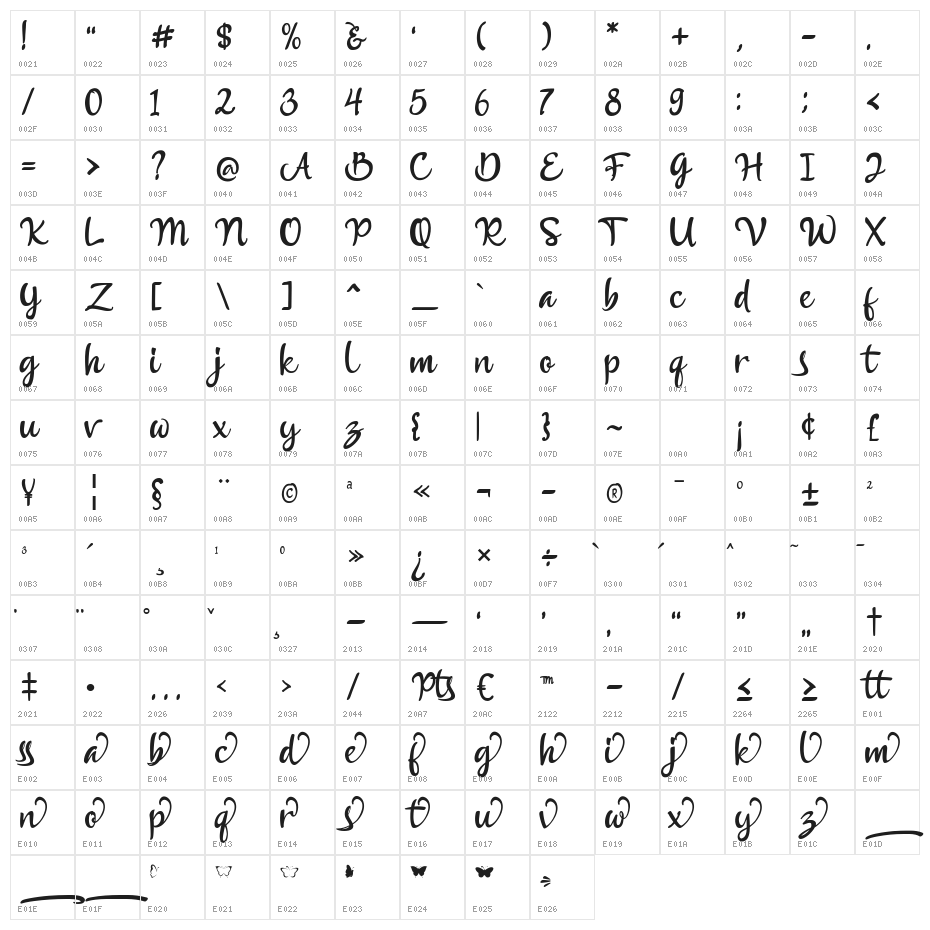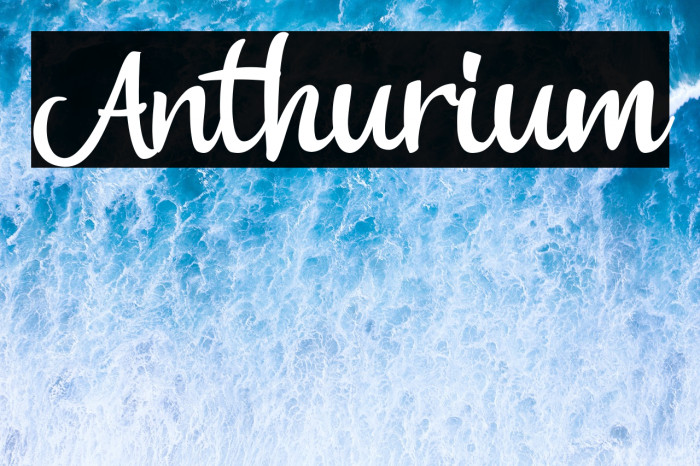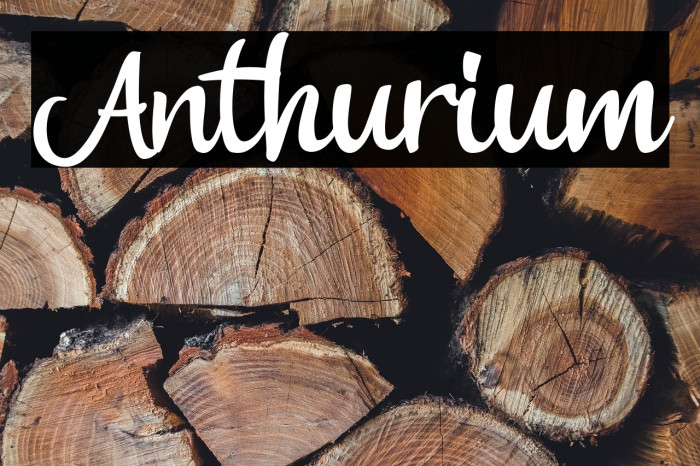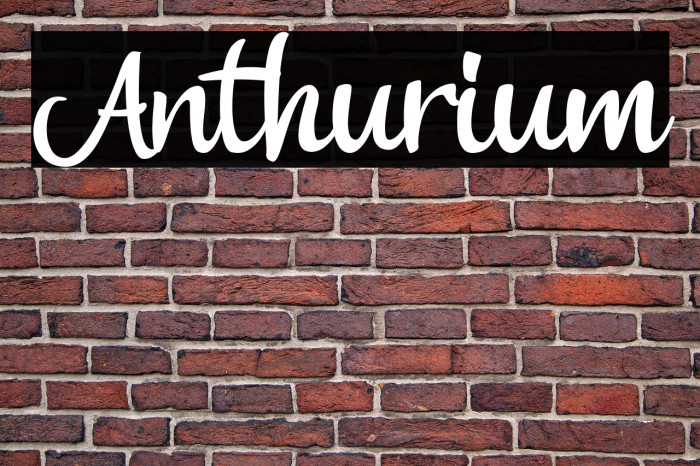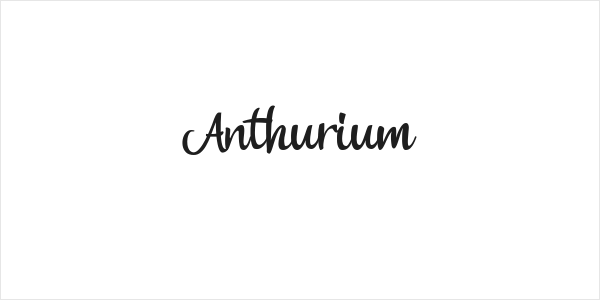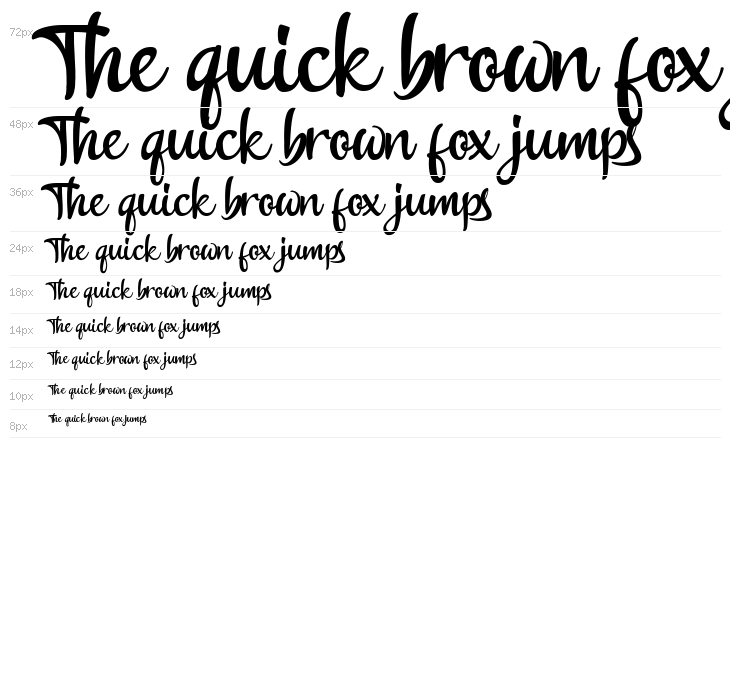
Anthurium Font
Anthurium Description
This font features a lively and flowing script style, characterized by its elegant and cursive letterforms. The uppercase letters exhibit a graceful, sweeping motion, while the lowercase letters maintain a consistent fluidity, creating a harmonious and connected appearance. The numerals and special characters are designed to complement the overall script style, ensuring a cohesive look across all elements. The font's playful yet sophisticated nature makes it suitable for a variety of creative applications.
| Use Case | Logos, Invitations, Decorative Text |
| Proposed Projects | Ideal for wedding invitations, greeting cards, branding projects, and decorative signage. |